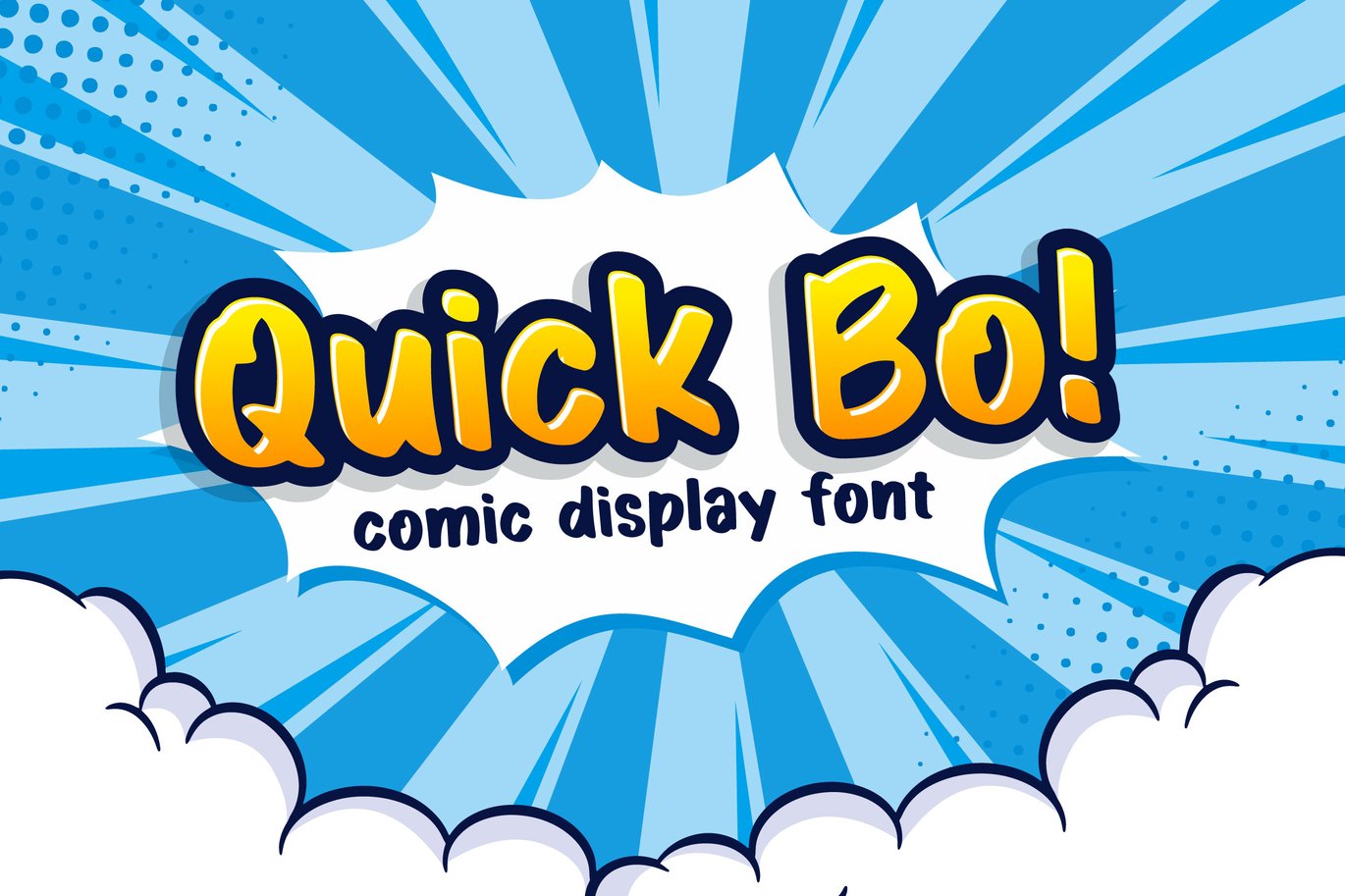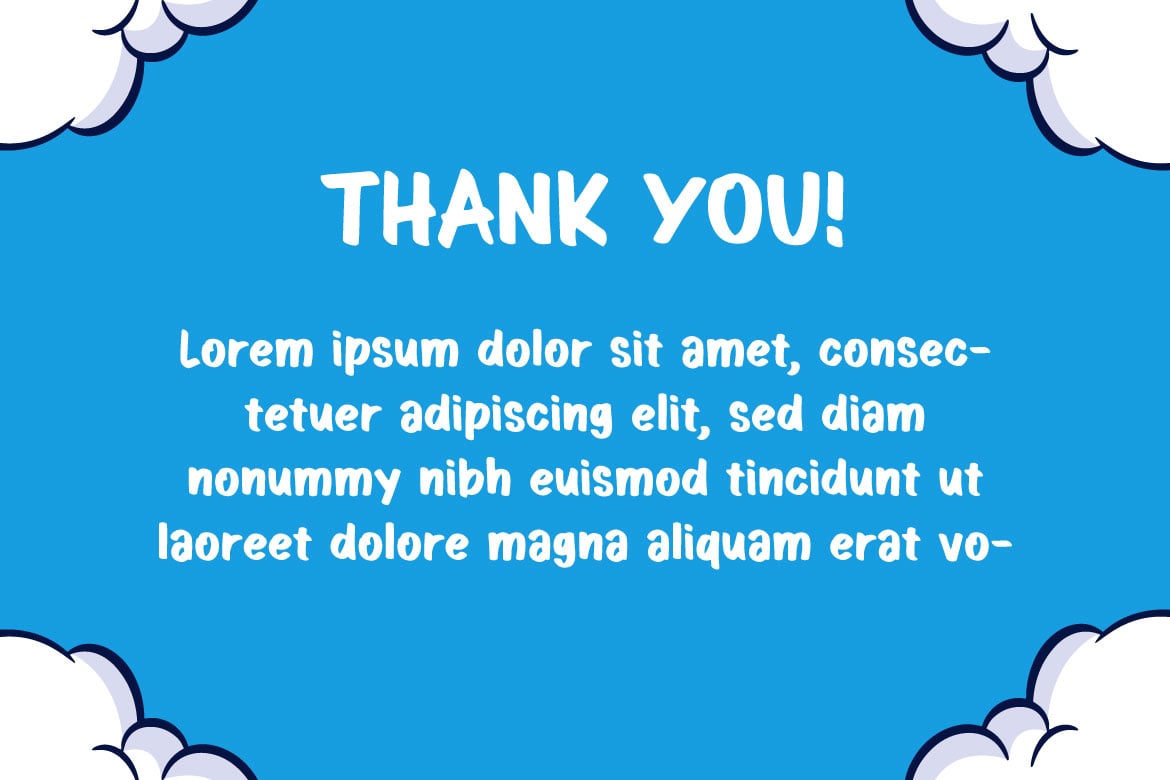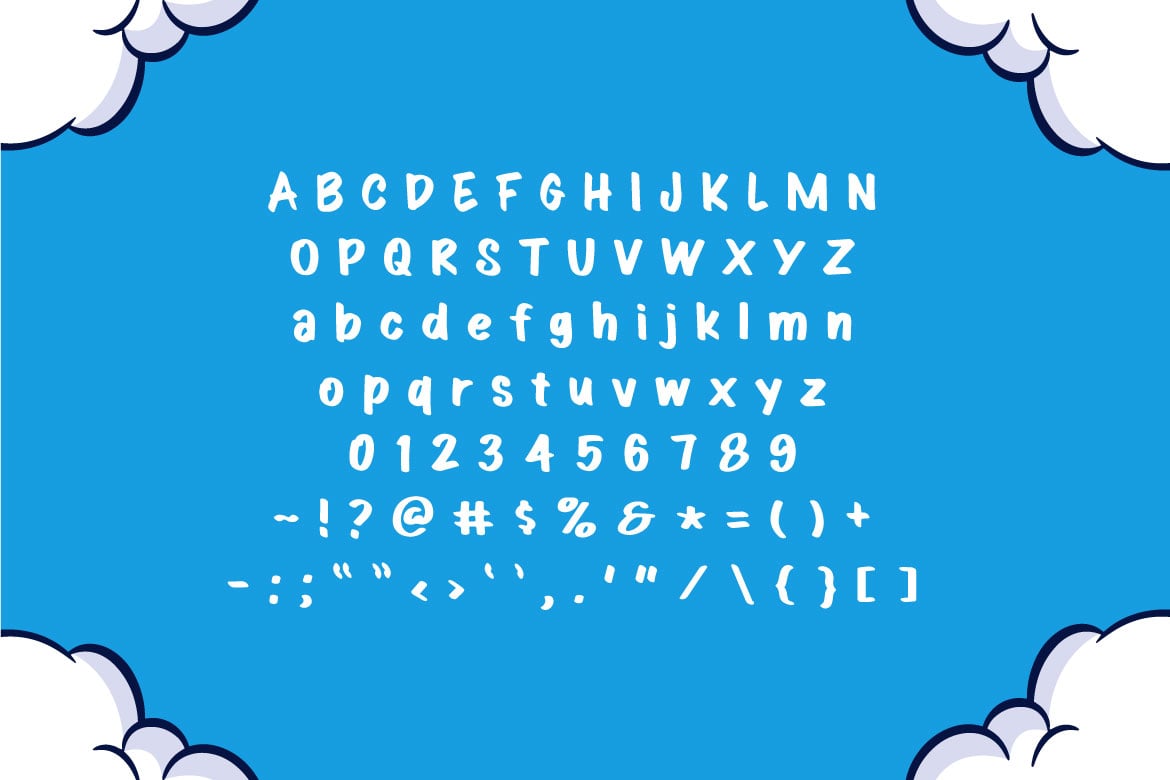
Quick Bo – Comic display font
If you are looking for a comic display font with hand made looking, meet QUICK BO
Quick bo is perfect for any works, such as your comic, poster, card, book title, headline of news, banner, flyer, stationery and many more. It also can be used in Any scale work.